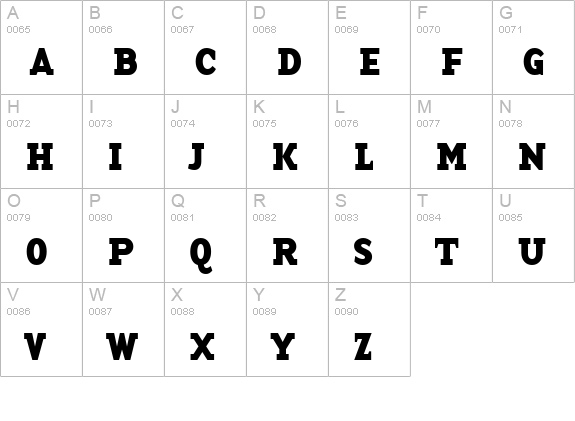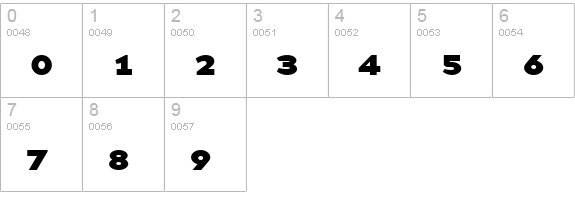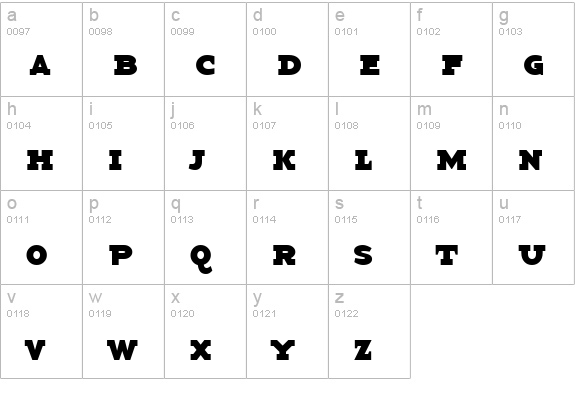
BaseTwSerifSmallCaps Bold Font Details
BaseTwSerifSmallCaps Bold is a strong, high-contrast variant in the BaseTwSerifSmallCaps typeface family \xE2\x80\x94 well suited to headlines, attention-grabbing titles, and strong calls-to-action.